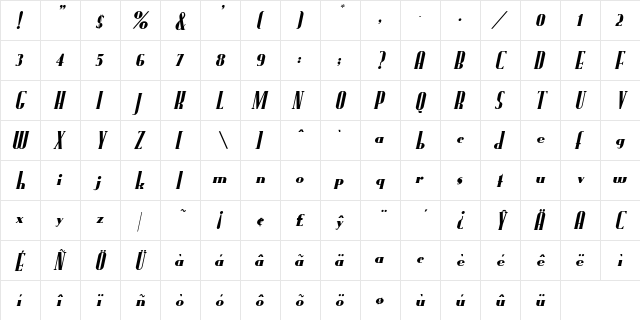
FundRunO Regular Font Preview
FundRunO Regular
FundRunO Regular Font Details
Design Context for FundRunO Typeface
FundRunO trades formality for fun, with bouncy, characterful letterforms that bring warmth and energy to any project.
Font Pairing: Pairs well with a rounded or humanist sans for body copy, maintaining the friendly tone without relying on FundRunO to carry extended reading.
Pro Tip: Use FundRunO at larger display sizes where its expressive character can land. Pair with a clean, simple sans for body copy to maintain readability.